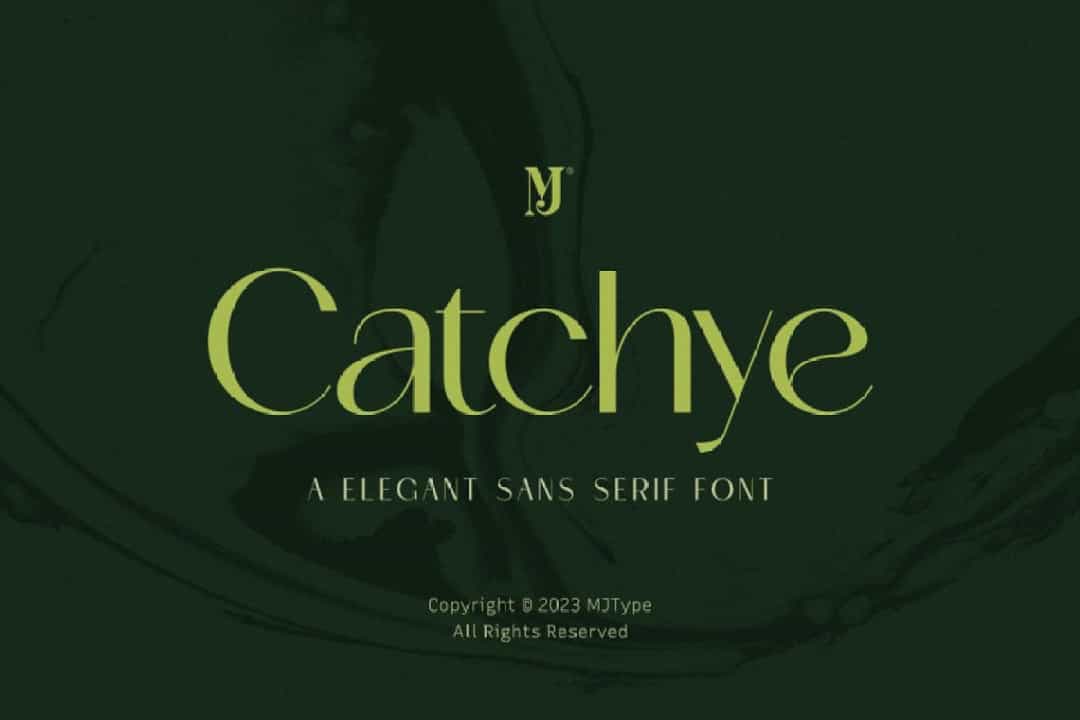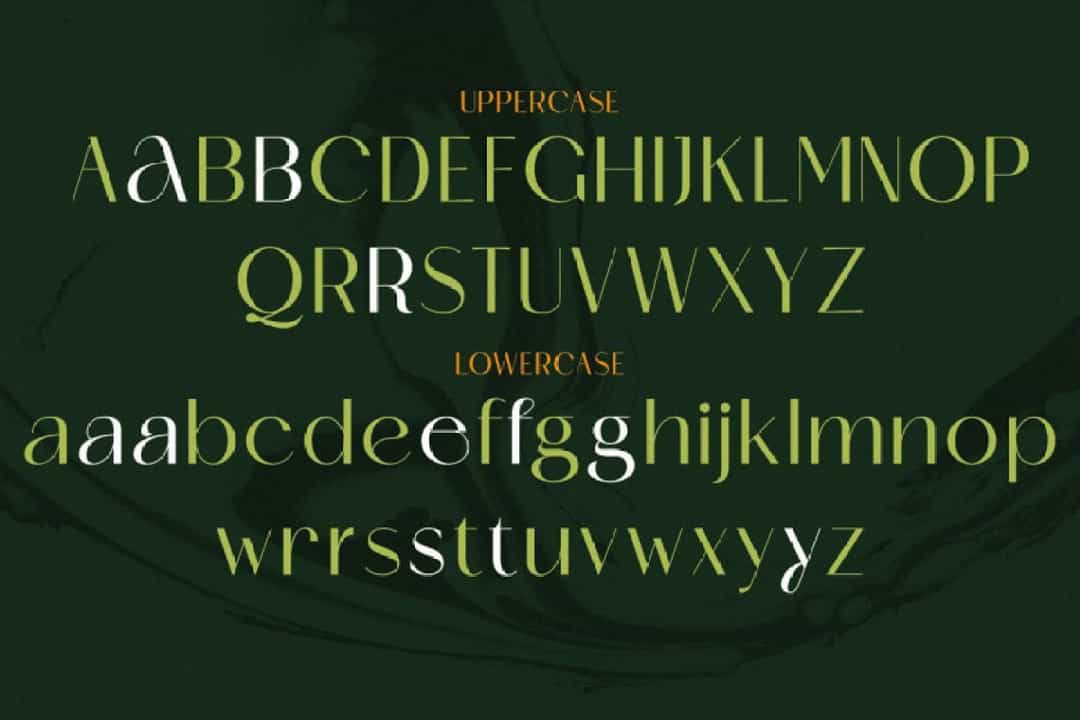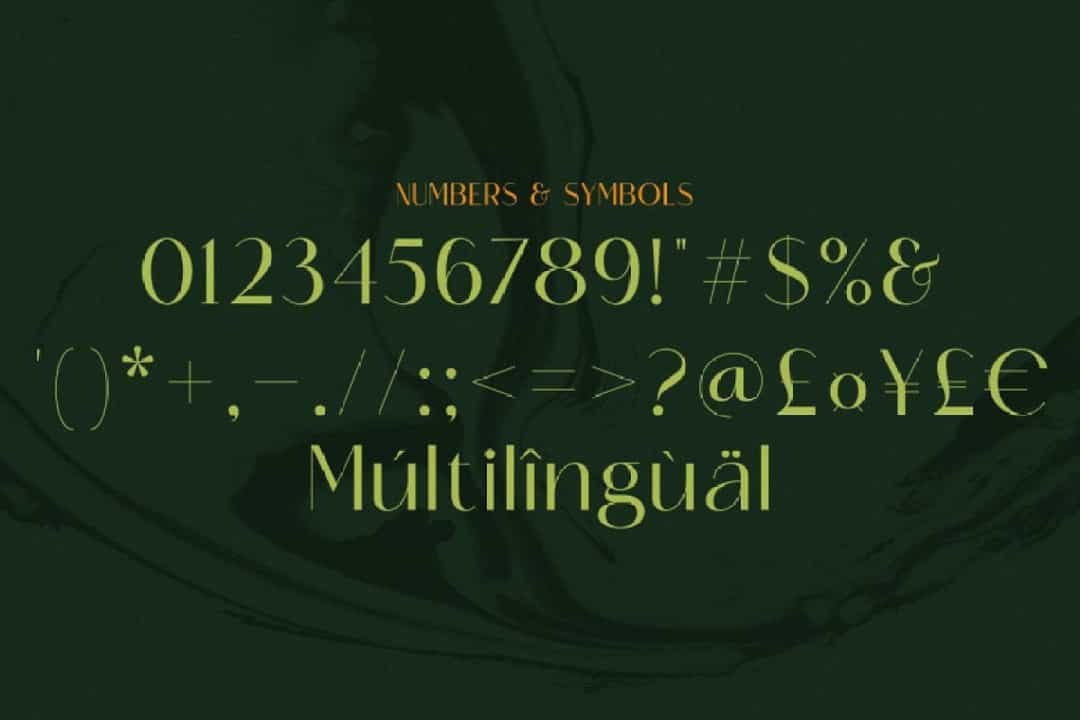
Catchye is a gorgeous font with stylish letterforms and well-balanced proportions that makes an elegant and fashionable statement in your design projects. Enjoy its appeal to enhance typographic designs with elegance and sophistication!